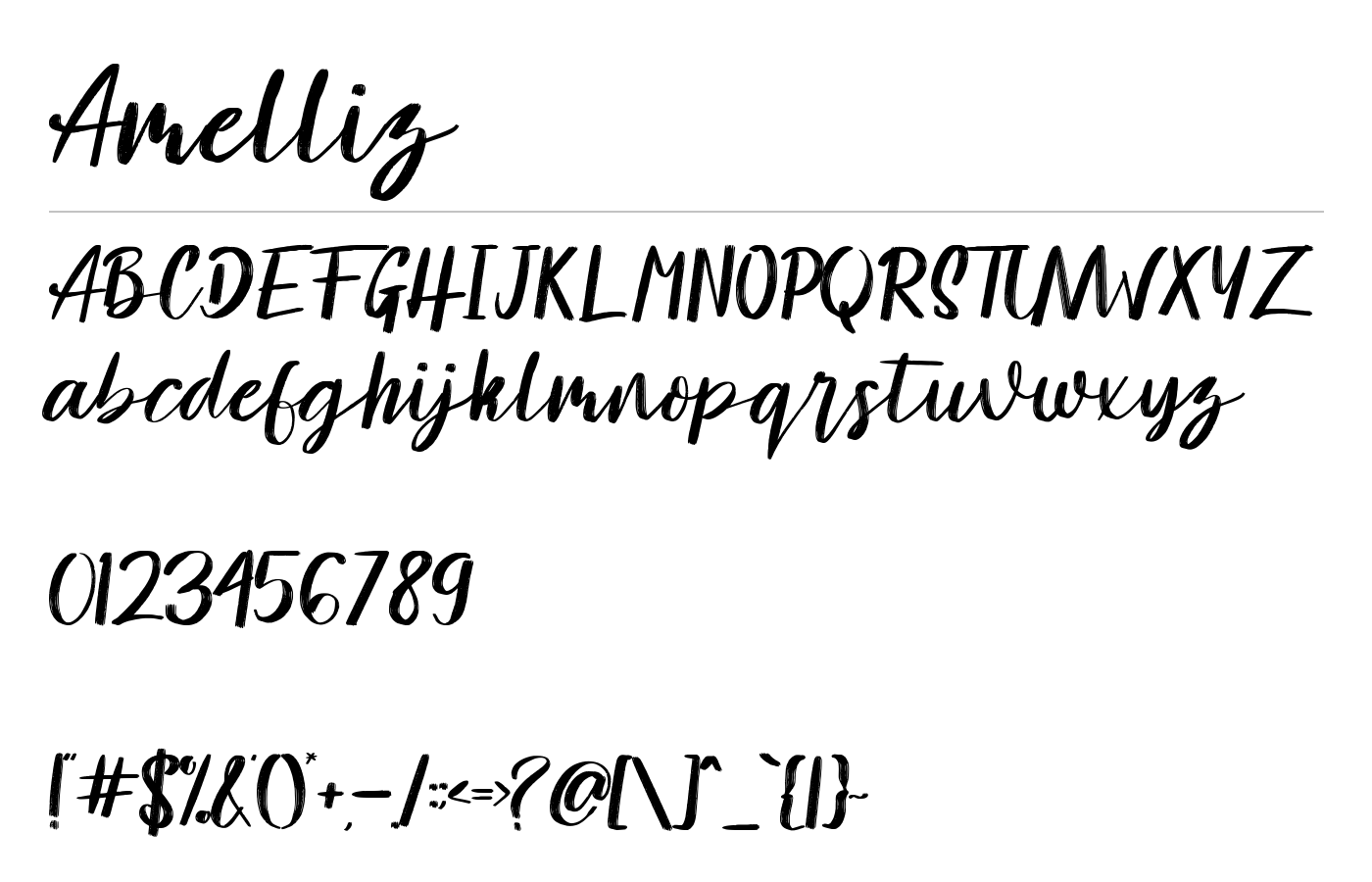
Amelliz is a lively script font with a hand-painted feel, featuring fluid, slightly textured strokes that give it a natural and artistic vibe. Its medium weight and distinct brush-like style make it ideal for creative projects, adding a personal and elegant touch that works beautifully for logos, invitations, and branding that aims to feel warm and expressive.
Amelliz Font
About Amelliz Font
| Designer | Stringlabs. 2020 |